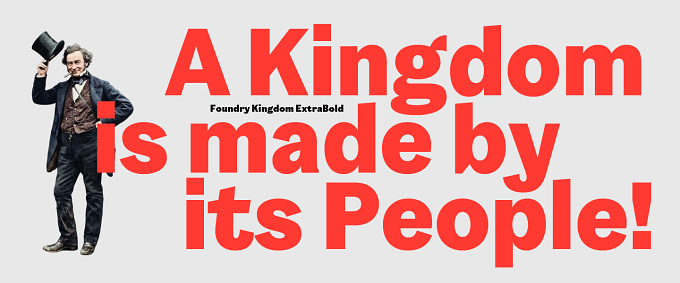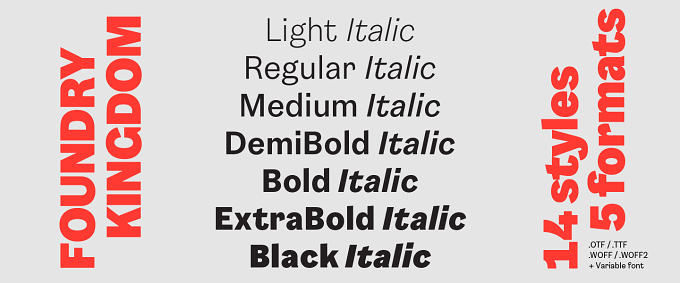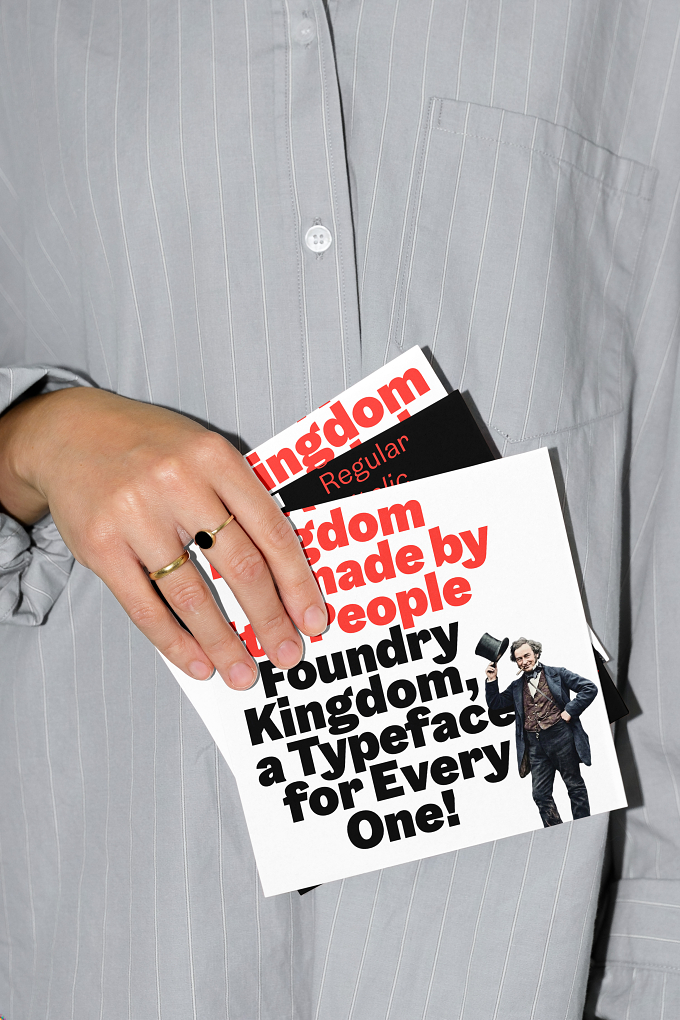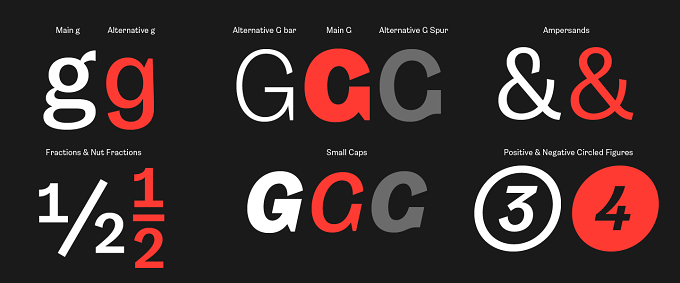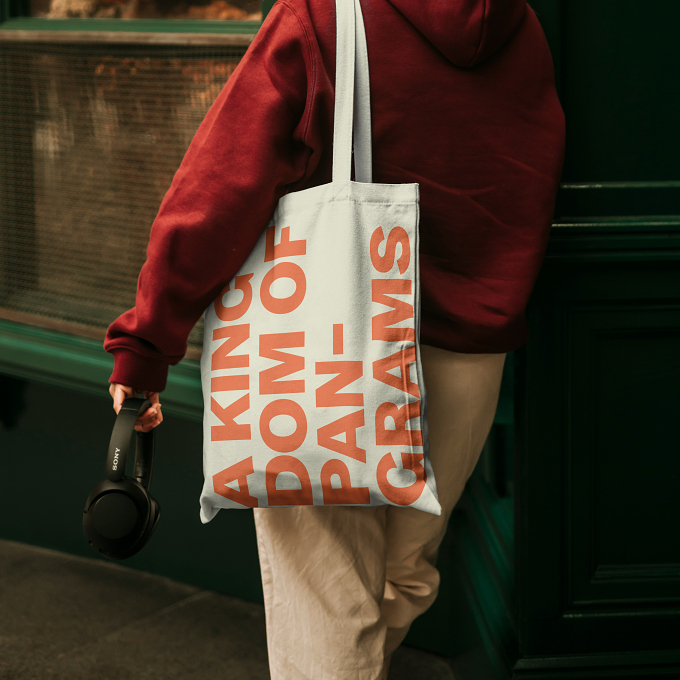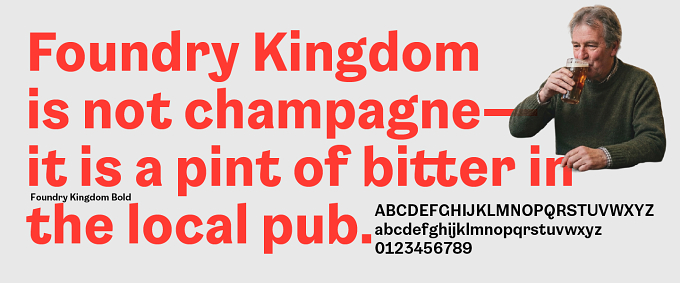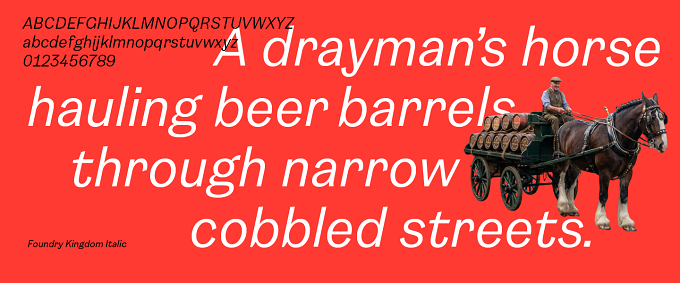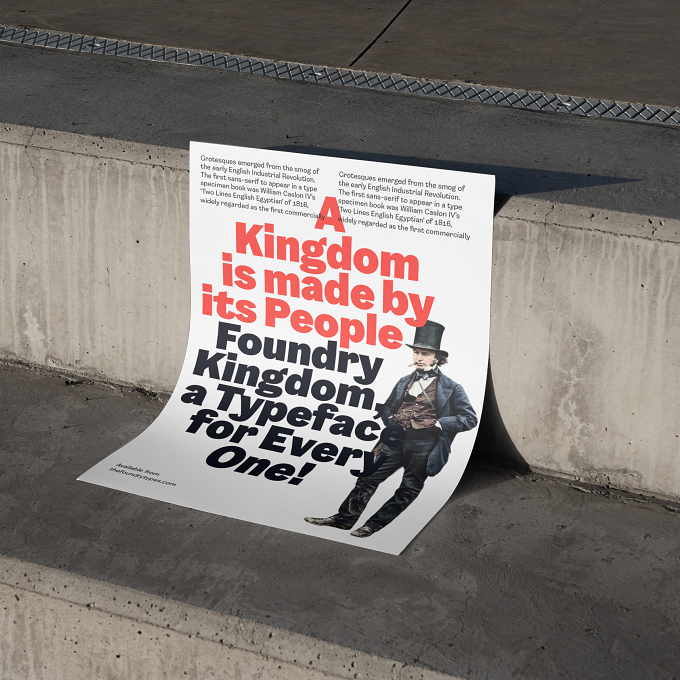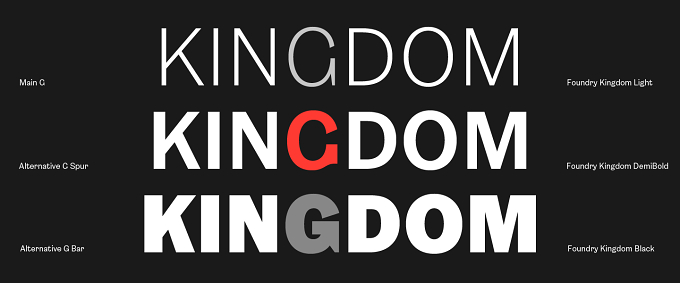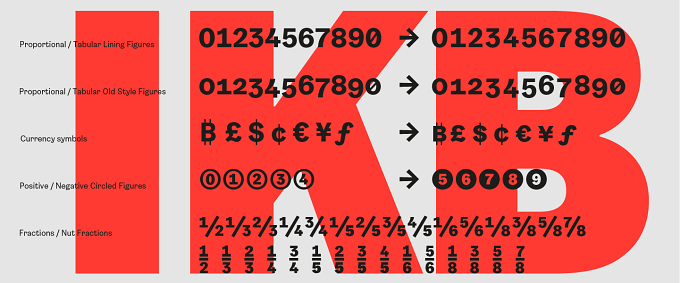
Foundry Kingdom by The Foundry Types
Foundry Kingdom is not champagne—it is a pint of bitter in the local pub. It is not the King’s horse at Ascot, but the drayman’s horse hauling beer barrels through narrow streets. It is not spectacle or ceremony, but industrial labour: the quiet dignity of work.
Rooted in the early English grotesques of the 19th century, Foundry Kingdom carries an industrial echo of cast metal, railway lettering, and newspaper type battered by use. But it avoids nostalgia for its own sake. Instead, it feels contemporary in its restraint, as though those historical references have been absorbed and reinterpreted rather than imitated. It carries the spirit of a nation shaped not by rulers, but by its people—those who built, dug, carried and endured.
Grotesques emerged from the smog of the early English Industrial Revolution. The first sans-serif to appear in a type specimen book was William Caslon IV’s Two Lines English Egyptian of 1816, widely regarded as the first commercially available sans-serif.
Thorowgood’s condensed sans-serifs, especially the Seven-line Grotesque of 1834, were among the earliest to include lowercase and helped establish the model that later influenced German Grotesk type. British sans-serif display types spread quickly into Central Europe; by the mid-1830s, they appeared in German-speaking regions and in Prague specimens of 1835. Eduard Haenel was among the early figures associated with introducing sans-serif printing types in Germany.
By the 1830s, lowercase grotesques were in use in Germany and soon after in the U.S, though not in Britain until the 1870s. By the end of the 19th century, every foundry had a full range of grotesques, from light to ultra-bold, condensed to expanded. The range was one of their great strengths.
From there, the German and English traditions diverged. German grotesks developed toward neutrality, leading to Akzidenz-Grotesk and later Helvetica. English grotesques, by contrast, matured through decades of use while retaining their distinctive character.
A defining milestone came with Akzidenz-Grotesk, released by H. Berthold AG in 1898. Emerging from the broader grotesque tradition, it established a model of clarity and neutrality that would influence many later designs, including Helvetica. English sans-serifs followed their own path, rooted in the irregular, expressive forms of their early origins. Together, both traditions helped shape the typographic landscape we know today.
Foundry Kingdom holds firmly to the English line. It is not designed for palaces. It is a working typeface: for small ads and bold headlines, for newspapers that spoke during strikes and unrest, for voices that refused to be quiet. It is for the printers of protest, the chroniclers of injustice and the everyday readers who made meaning from ink on paper.
It is not refined or decorative. It is direct, grounded, purposeful and powerful—painstakingly handcrafted, with a sense of weight and utility, as if made to endure repetition, pressure and time.
There is a solidity to it. The strokes carry a quiet heaviness, deliberate, not clumsy, giving the letters a physical presence on the page. They suggest ink pressed firmly into paper and the force of hot-metal printing. These are forms built to be read quickly and clearly under less-than-ideal conditions.
Its proportions are functional: open enough to remain legible at small sizes, yet striking at larger ones. There is a subtle tension between human irregularity and desired perfection—edges not overly polished, shapes that resist sterility. This is not neutrality. Foundry Kingdom carries tone and weight.
In headlines, it asserts. In text, it works. It does not ask for attention through flourish, but earns it through clarity and presence. It feels made for communication under pressure: for statements, notices and voices that need to be heard without embellishment. It has the cadence of something spoken plainly, without performance.
It is not elegant in the traditional sense. It is dignified.
Foundry Kingdom pairs a large x-height with concise spacing to support readability, especially at smaller sizes. Open terminals and generally narrow letterforms create a compact internal structure without sacrificing legibility. Distinctive features include the bold terminals of the a, c, g, j, r, s, t, and y. The overarching shaping of the f, j, t and y, details that express its contemporary homage to a bygone age.
Legibility features include a distinctive Q tail, an extended K arm in the capitals and two alternative Gs. The lowercase includes a two-storey a, a double-storey g, a wide t bar and a curved y descender.
Designed for complete typographic flexibility, Foundry Kingdom offers 14 styles ranging from Light to Black, each with Italics. Also includes a slashed zero, a figure one with a baseline bar in the tabular set, both proportional and tabular lining and Old-style figures. Additional features include circled positive and negative figures, Small Caps, alternative nut fractions and a choice of open or looped ampersands.